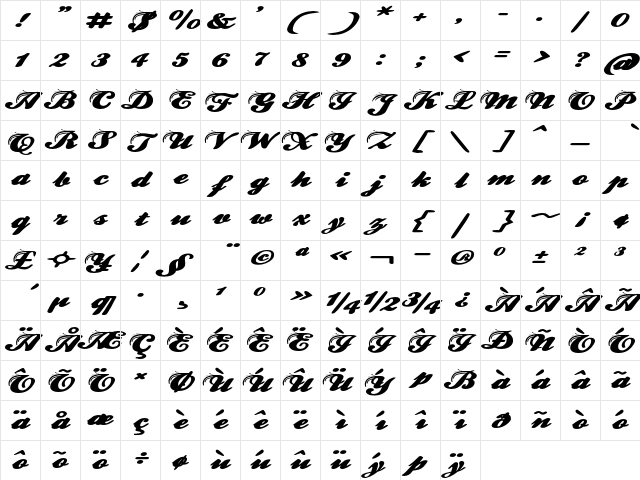
Harangut Extra-expanded Bold
Style: Extra-expanded Bold
Harangut Family
Harangut Extra-expanded Bold
Complete Harangut Extra-expanded Bold glyph index. Displaying only characters natively supported by Harangut Extra-expanded Bold font.
Design Context for Harangut
Harangut is a composed and adaptable typeface that performs quietly and consistently across a wide range of design contexts. Its bold stroke weight gives it real presence on the page.